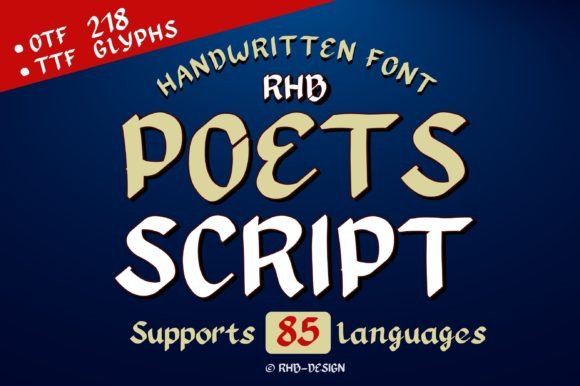
Introducing the remarkable "Poets Script Font"! This playful and modern font, created by the talented Robert Biedermann on iPad using the Apple Pencil, is the perfect choice for those seeking the best fonts for letter projects.
With its handwritten or hand-drawn appearance, the "Poets Script Font" boasts a stunning collection of 218 exquisite glyphs. But that's not all - this font also supports multilingual capabilities, making it suitable for a whopping 85 languages, including English, German, Spanish, French, Italian, Swedish, and many more. You can now effortlessly express yourself in any language!
This font goes above and beyond your expectations, as it includes standard punctuation glyphs, umlauts, and even the Euro symbol. No detail has been overlooked! Whether you're a crafter or a graphic designer, the "Poets Script Font" is your ideal companion. It seamlessly integrates with popular tools like Photoshop or Silhouette Design Studio, allowing you to bring your creative visions to life.
What sets the "Poets Script Font" apart is its unparalleled uniqueness. Its charming and distinctive appearance makes it a fantastic choice for a variety of creative projects. Imagine adorning your walls with inspiring posters, designing eye-catching T-shirts, or adding a touch of elegance to quotes and branding communication. With this font, the possibilities are endless!
The "Poets Script Font" is more than just a font - it's a gateway to captivating and visually stunning creations. Dare to be different, and let this font be your artistic companion. Turn heads, evoke emotions, and leave a lasting impression with the "Poets Script Font." Embrace the power of words and design with this extraordinary font today.